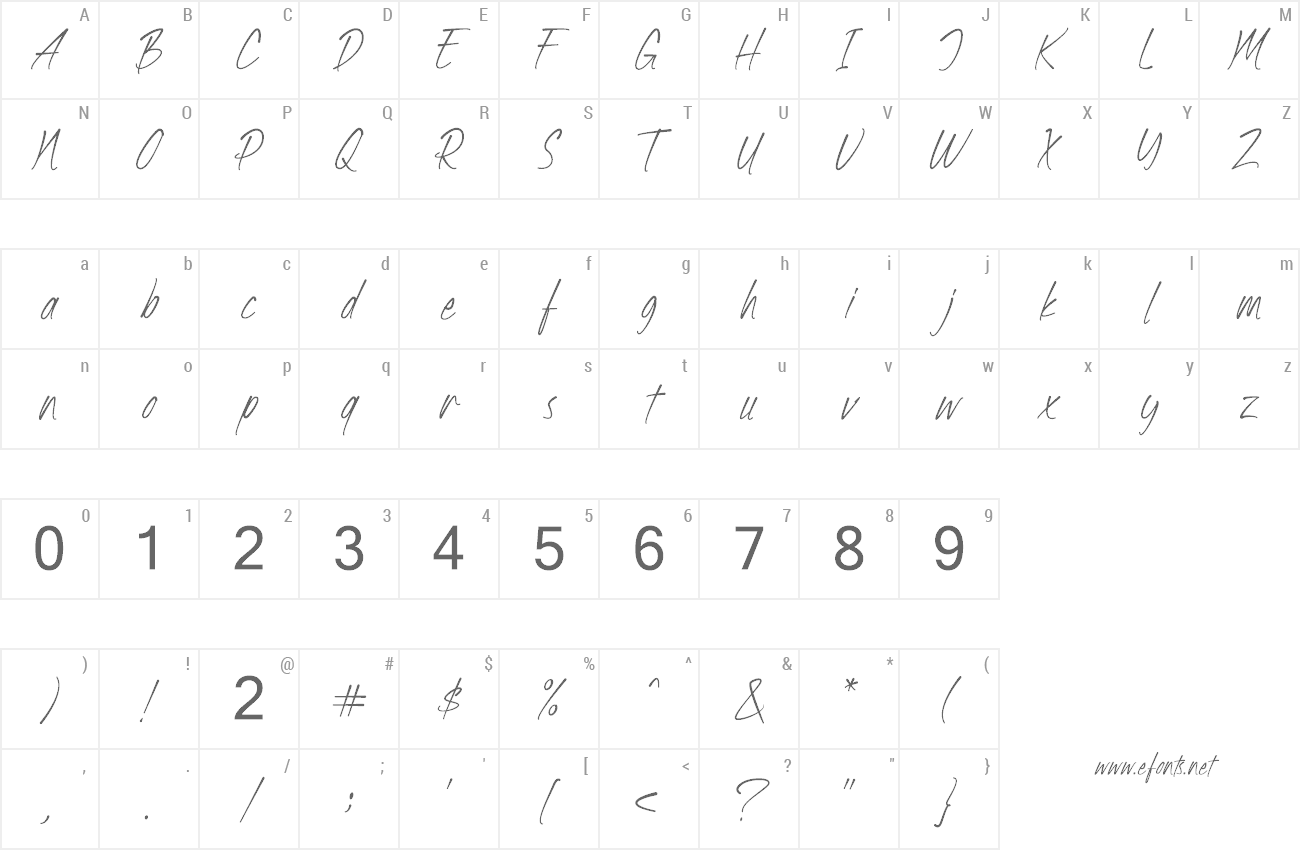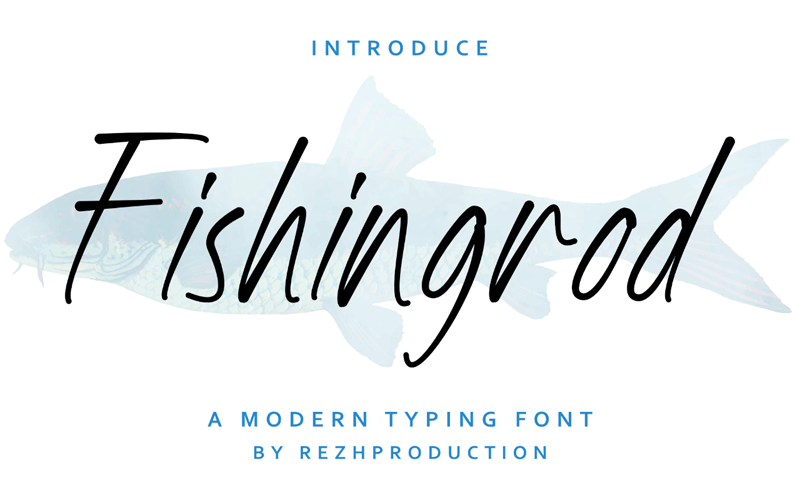
Preview and download Fishingrod Font. Created by Sugartype in Script Handwritten styles with Free for personal use license.
Thank You for Downloading FISHINGROD - a Unique Flat Typeface - FISHINGROD is a beautiful light handwritten font with a unique feel and a stunning impact. It will add a luxury spark to any design project that you wish to create! This fonts license is Free For Personal Use Only with limited feature. if You Want to Use for Commercial Project, Please Purchase it on the following link https://www.creativefabrica.com/product/fishingrod/ref/1031025/ |